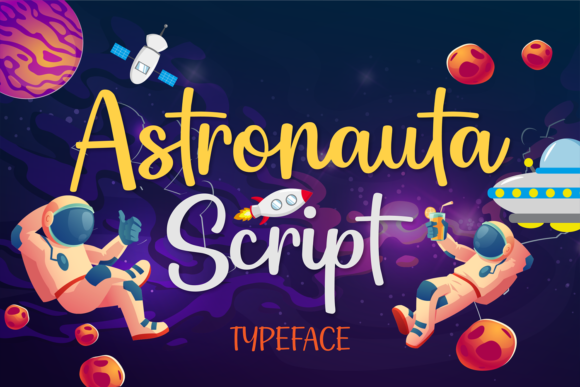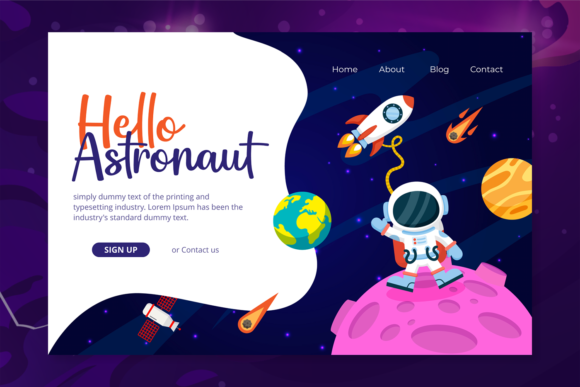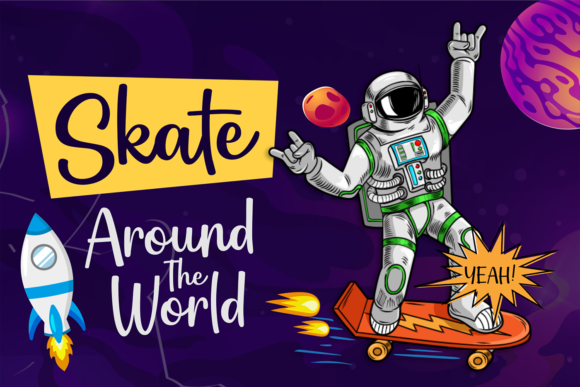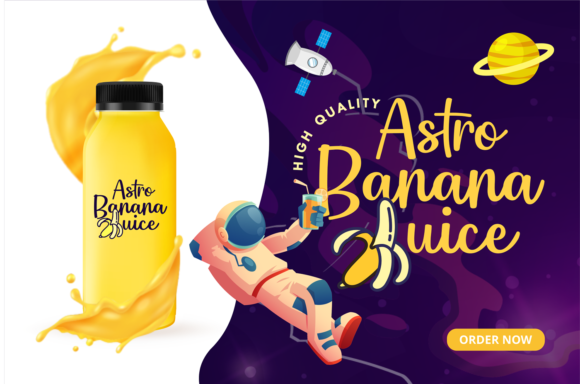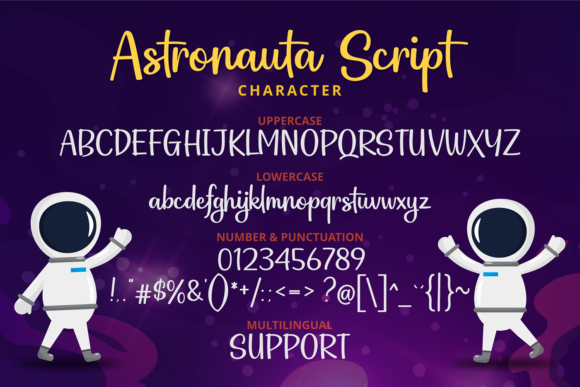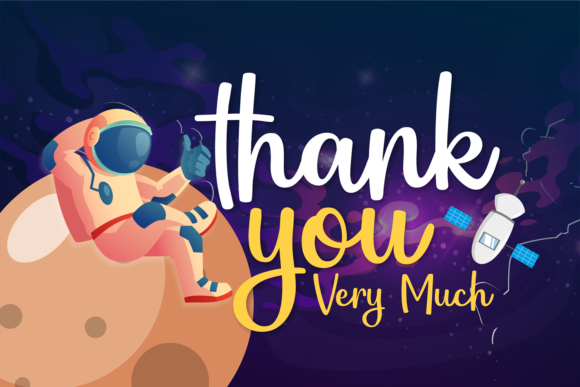
Astronauta Font
About Astronauta Font
Astronauta is a flowing and beautiful handwritten font, made with the help of a brush pen. It will elevate a wide range of design projects to the highest level, be it branding, headings, wedding designs, invitations, signatures, logos, labels, and much more!